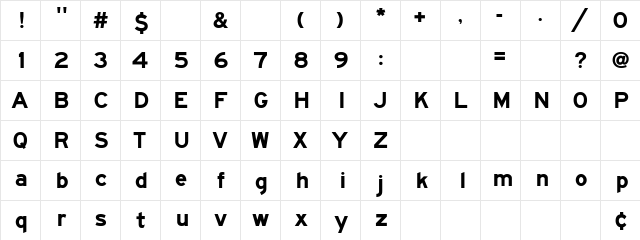
Roadgeek2000EM Regular Font Preview
Roadgeek2000EM Regular
Design Context for Roadgeek2000EM Typeface
Roadgeek2000EM offers clean, dependable letterforms without strong stylistic allegiance, making it a practical choice for designers who need flexibility.